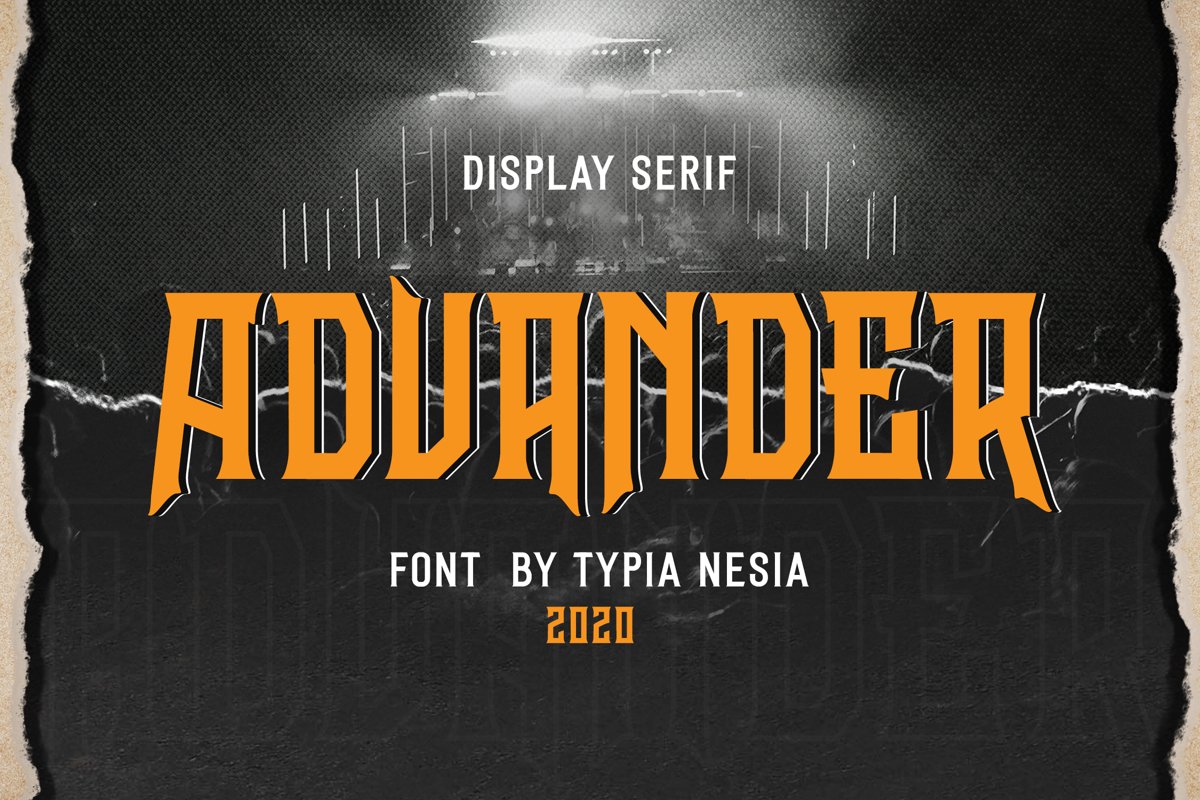
Advander is Blockletter Decorative Serif Display Font.
Advander is handcrafted vintage display font. It can be used in different purposes: lettering and logotype, labels, t-shirts, product packaging, invitations, advertising, and any classic / vintage typography design projects.
Advander